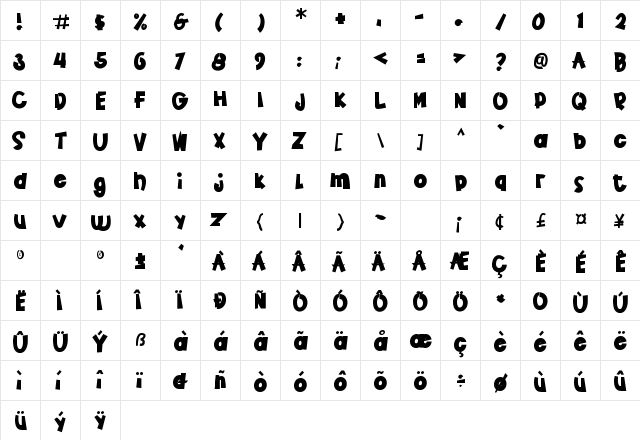
Comic Dylans Regular
Design Context for Comic Dylans Typeface
Comic Dylans trades formality for fun, with bouncy, characterful letterforms that bring warmth and energy to any project.
Font Pairing: Pairs well with a rounded or humanist sans for body copy, maintaining the friendly tone without relying on Comic Dylans to carry extended reading.
Pro Tip: Use Comic Dylans at larger display sizes where its expressive character can land. Pair with a clean, simple sans for body copy to maintain readability.